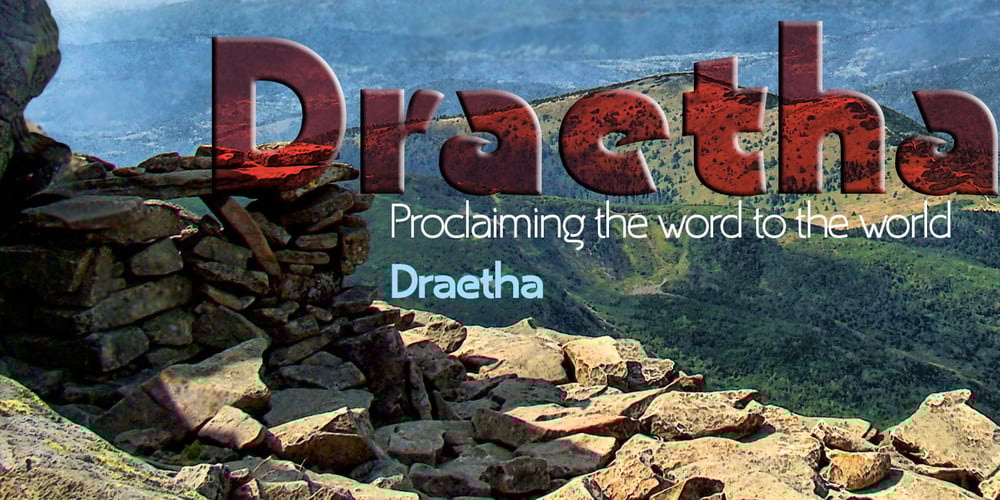
Draetha
Draetha font
Draetha Font Family was designed by David Bergsland and published by Hackberry Font Foundry. Draetha contains 6 styles and family package options. Draetha is the 6-font companion to Biblia and Biblia Serif. But it is definitely designed to be used with Biblia Serif for book design and production. It is a nearly monoline sans with a clean style which contrast beautifully with Biblia serif. The Black versions push monoline to the extreme of boldness. It has the same font metrics as Biblia and Biblia Serif. The only compromise is that Ultra is too extreme to be able to provide small caps or oldstyle figures. It is designed with text spacing, to work in text with Biblia and Biblia Serif. For heads and subheads, you will need to adjust the tracking. But it tracks well.